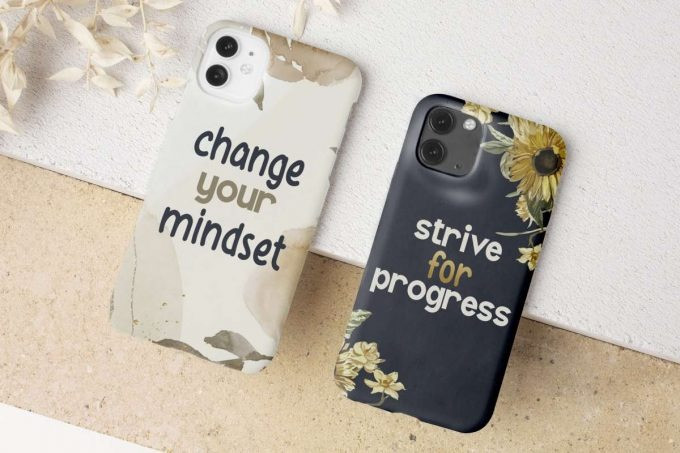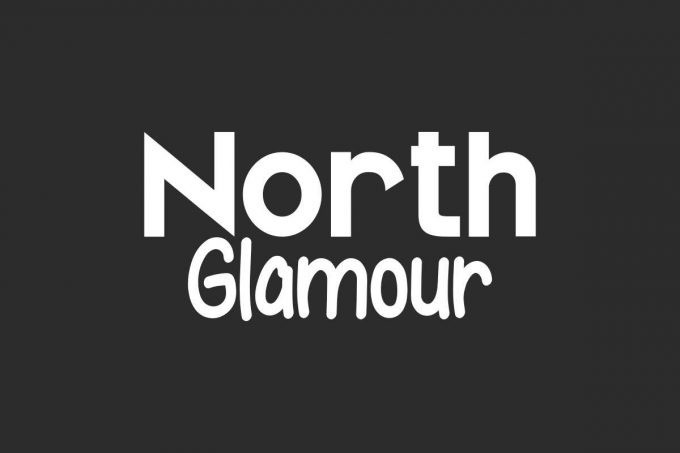
North Glamour Font
North Glamour Font is a fun and casual font duo that complement each other in two different styles : modern sans serif display and simple fun comic handwriting script. It will be suitable for many industries, such as craft, fashion, florist, interior design, marketing, publishing, skincare, travel, and many more!
North Glamour Font has includes full set of Uppercase and Lowercase Basic Character, Numerals and Punctuation to provide perfection that you will love making it great for many designs, such as brand logo, business card, label, printing design, poster, product packaging, quote, web page, etc.